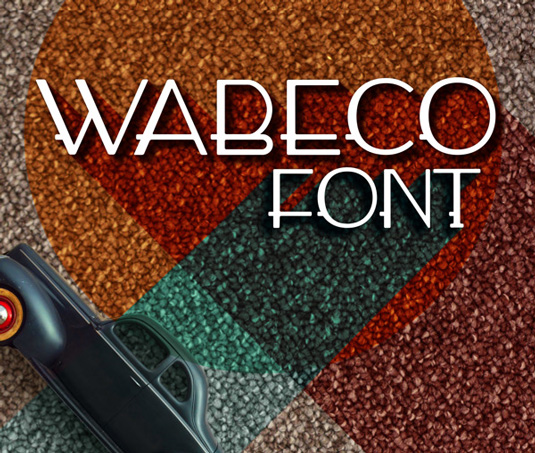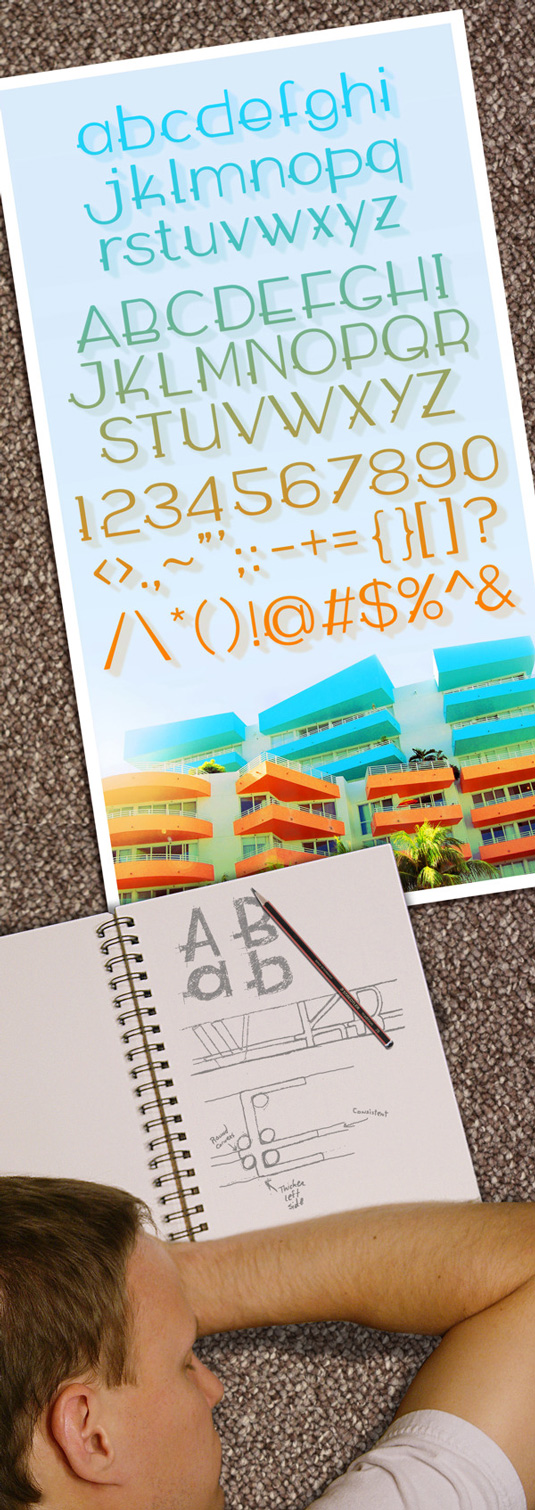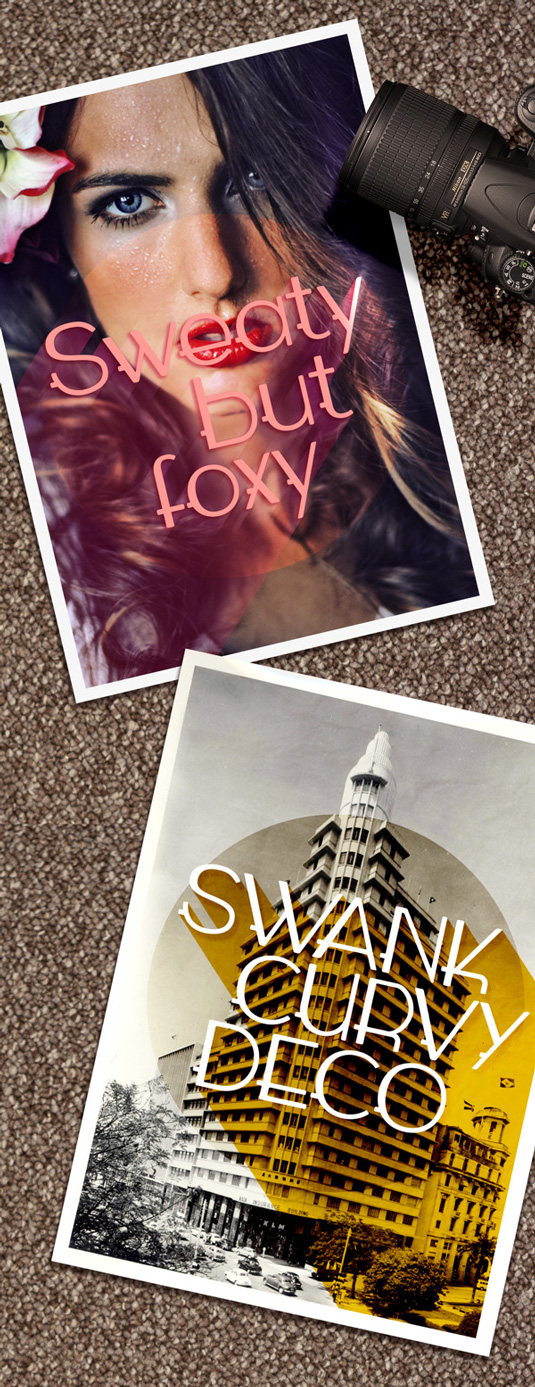
Font of the day: Wabeco
Wabeco by Paul Reis
A personal project from graphic designer Paul Reis, Wabeco was initiated from the study of art deco elements, forms, shapes, and colour. "It was softened with rounded edges and unique transformations were given to a number of the characters," Reis comments.
"In addition to its art deco style, Wabeco would display well in vintage, industrial, as well as fashion applications. The font is unique and eye-catching when used as a large headline, but also displays well as lowercase in traditional copy."